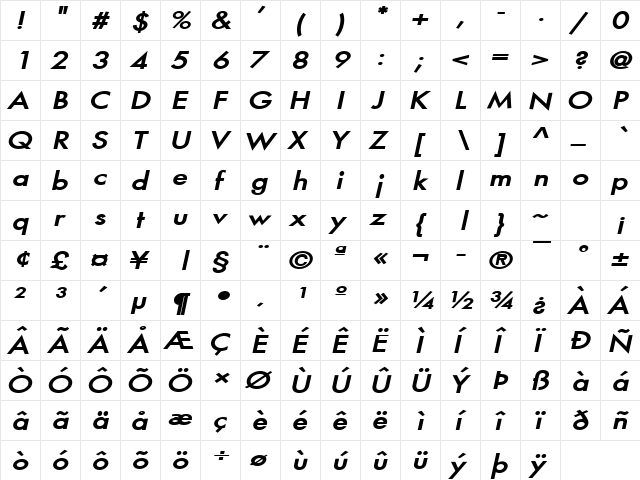
Fusi-Extended Bold Italic
Design Context for Fusi-Extended Typeface
Fusi-Extended is a composed and adaptable typeface that performs quietly and consistently across a wide range of design contexts. The dynamic lean of this cut emphasises speed and emphasis in any layout. Its bold stroke weight gives it real presence on the page.